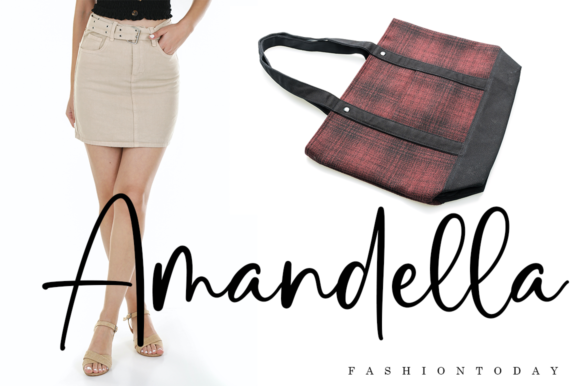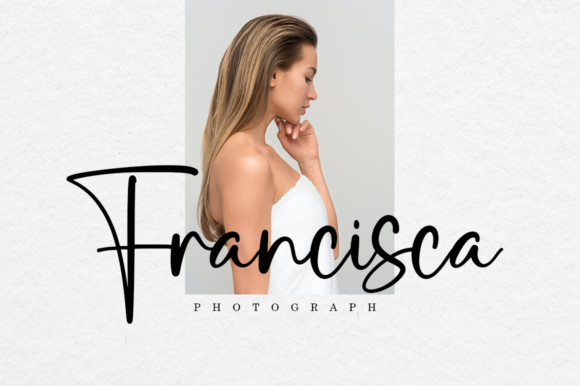
Galantis is a lovely and delicate script font that exudes elegance and class. This font was particularly crafted for those who need a beautiful and refreshing look to their designs.
Galantis Font